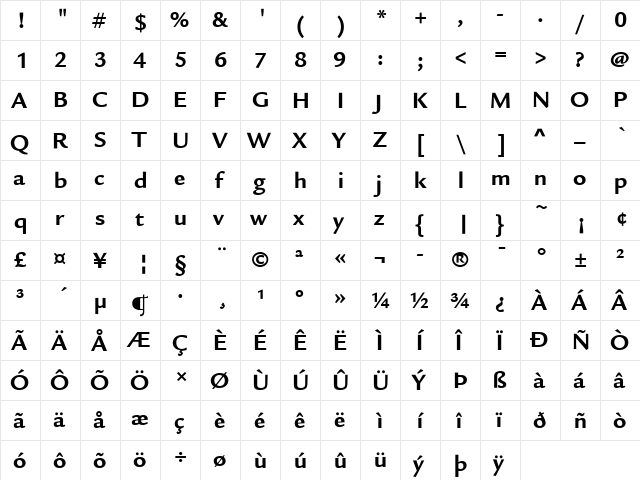
Legacy Sans ITC Regular
Design Context for Legacy Sans ITC Typeface
Legacy Sans ITC is a composed and adaptable typeface that performs quietly and consistently across a wide range of design contexts.